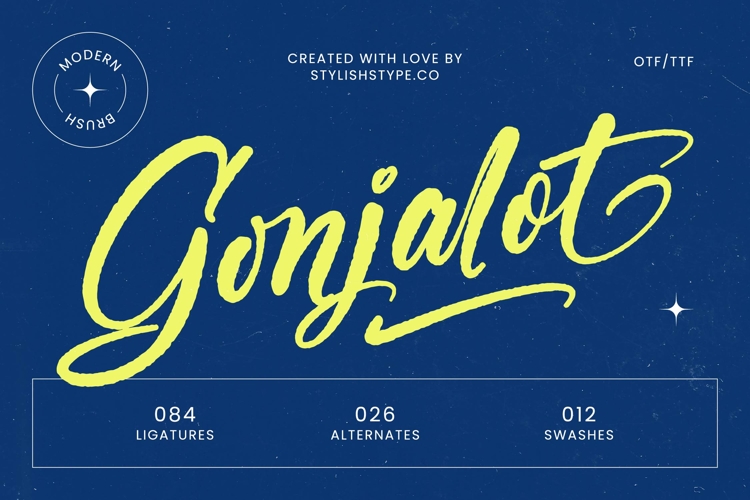
Gonjalot - Modern Brush Font
Elevate your designs with the vibrant energy of Font Gonjalot - Modern Brush Font Script, a truly expressive design that captures the essence of contemporary hand-lettering. This font masterfully blends authentic brushwork with a polished, modern aesthetic, delivering a captivating visual narrative for any project. Its fluid strokes and natural rhythm imbue every word with a distinctive, artisanal charm, ensuring your message stands out with undeniable presence.
Unlock unparalleled creative freedom with Font Gonjalot - Modern Brush Font Script, engineered for sophisticated design. Featuring a rich array of ligatures, alternates, and swashes, this font offers extensive options for creative customization. The inherent high-contrast and dynamic flow of its letterforms provide a genuine hand-crafted feel, perfect for projects demanding a unique and personalized touch that resonates deeply with audiences.
Experience seamless global communication with Font Gonjalot - Modern Brush Font Script. With its extensive multilingual support, Font Gonjalot - Modern Brush Font Script adapts seamlessly across global markets, making it incredibly versatile for international projects. This robust functionality ensures your brand's voice maintains its integrity and appeal, irrespective of linguistic boundaries, offering true professional utility.
Font Gonjalot - Modern Brush Font Script is perfectly suited for creating an unforgettable brand presence. It’s ideal for luxury branding, packaging design, editorial layouts, wedding invitations, and social media graphics. Whether crafting sophisticated logos or engaging marketing materials, this brush script promises to deliver a memorable impact and a truly distinctive identity, enhancing every visual communication with grace and flair.